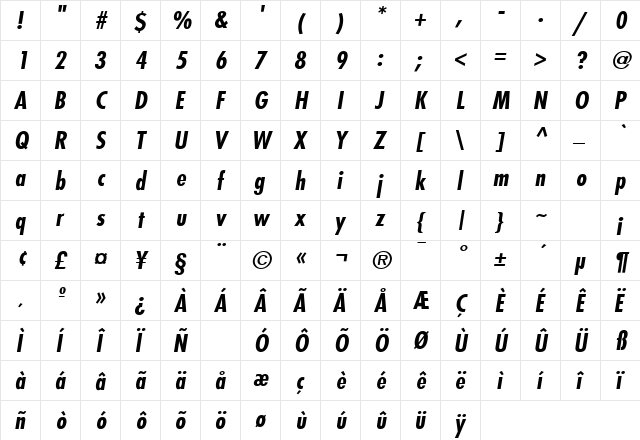
Kudos Black Condensed SSi Bold Condensed Italic Font Preview
Design Context for Kudos Black Condensed SSi Typeface
Kudos Black Condensed SSi offers clean, dependable letterforms without strong stylistic allegiance, making it a practical choice for designers who need flexibility. The dynamic lean of this cut emphasises speed and emphasis in any layout. The heavy weight commands attention and anchors typographic hierarchies. The condensed width makes it efficient for tight spaces without sacrificing legibility.
Pro Tip: Use Kudos Black Condensed SSi for emphasis, pull quotes, and subheadings where its slanted energy can add rhythm to the layout.